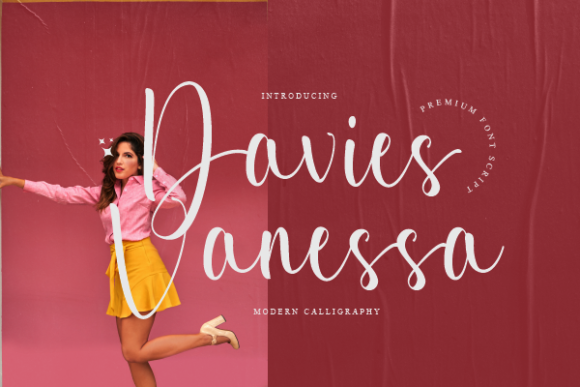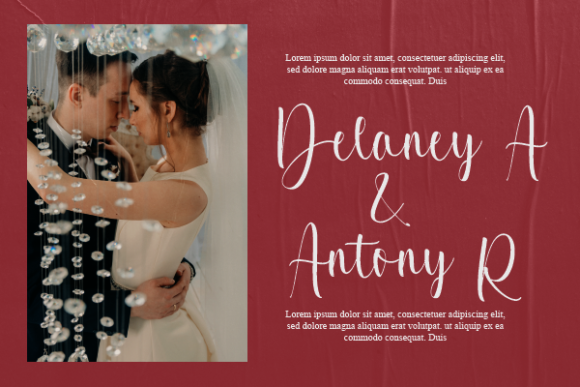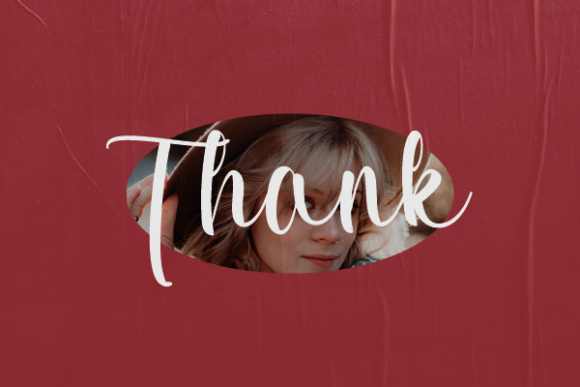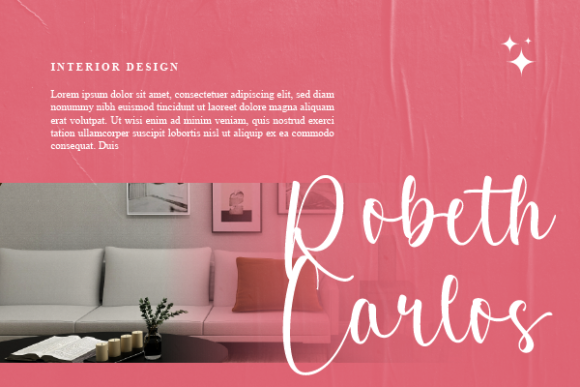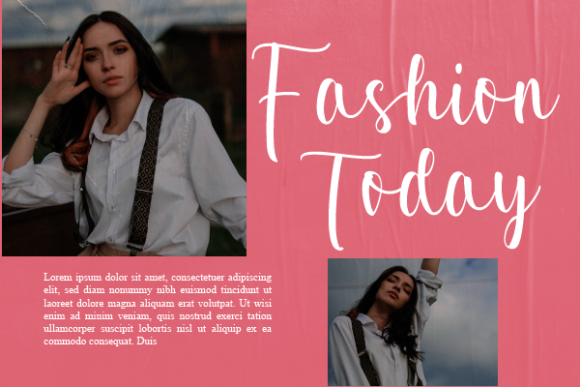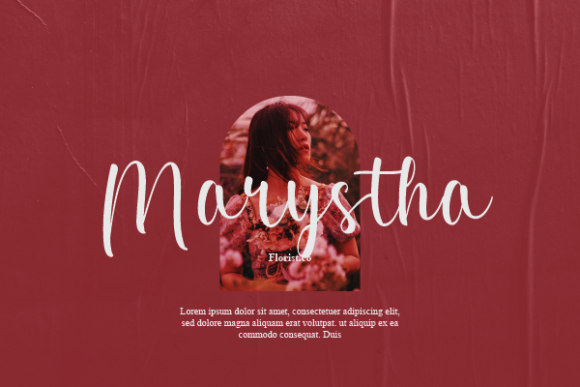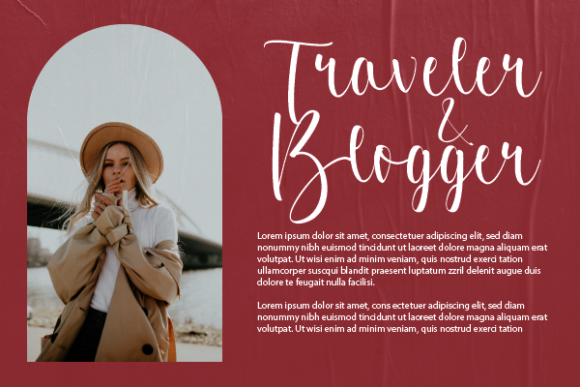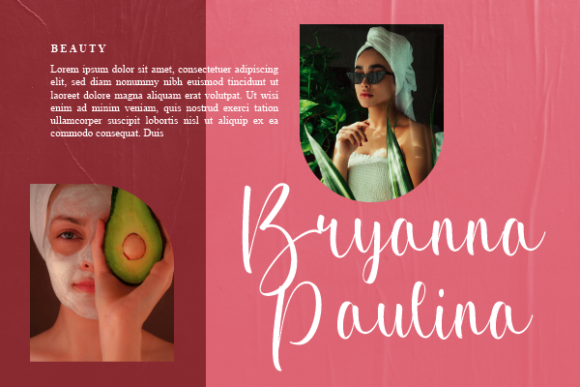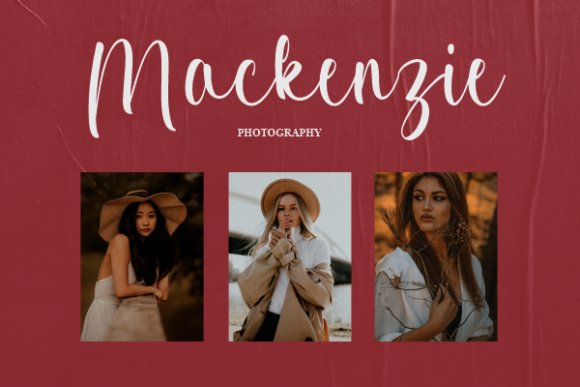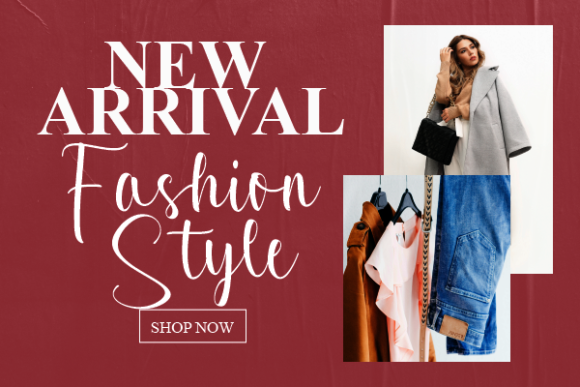
Davies Vanessa Font
About Davies Vanessa Font
“Davies Vanessa” is a script font that exudes loveliness, adorned with charming and playful characters that appear to gracefully dance along the baseline. The font’s inherent charm lies in its ability to infuse a sense of vibrancy and creativity into your designs.
The font’s allure emanates from its capacity to seamlessly imbue your creative ideas with charm and playfulness. Each character is thoughtfully crafted to evoke an aesthetic that is visually engaging and distinctive.
As “Davies Vanessa” becomes an integral part of your creative toolkit, you’ll experience its transformative effect. By incorporating this font into your projects, you’ll discover how it amplifies and distinguishes your ideas, causing them to stand out in a crowd.
In essence, “Davies Vanessa” is more than just a font; it’s a catalyst for creativity. Its potential to infuse life and uniqueness into your designs, combined with its charming and playful script style, positions it as an invaluable resource for designers seeking to craft visuals that radiate with individuality and seize the viewer’s attention.